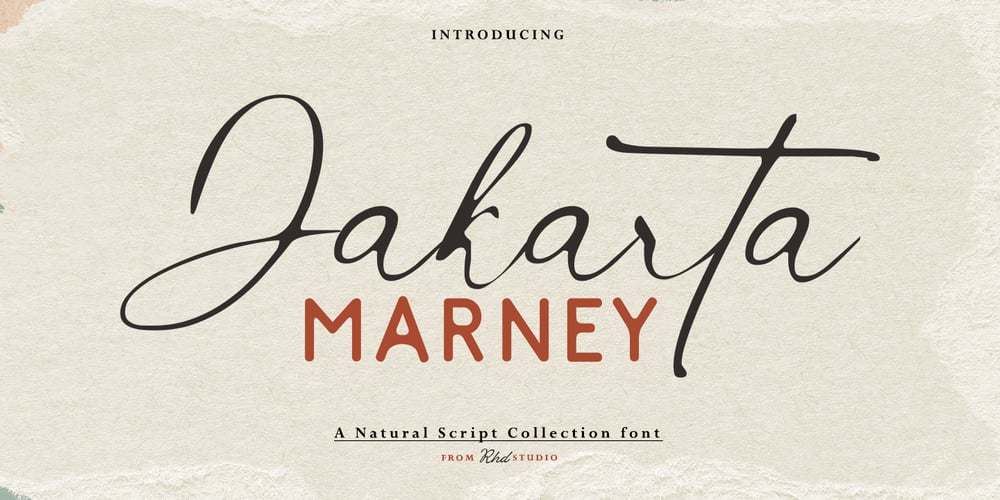
Jakarta Marney Sans
Jakarta Marney Sans font
Jakarta Marney Sans Font Family was designed by Rahmad Rizky and published by Rhd Studio. Jakarta Marney Sans contains 2 styles and family package options. ntroducing, Jakarta Marney – The Essential Font DuoJakarta Marney is a perfect and essential combination of two fonts including rounded sans, and original signature. This font duo also supports multilanguage, numbers and symbols. You can use this font for any purpose. The best part is, you don’t have to look for a partner. It is included in this package. Also equipped with a bonus of 12 beautiful premade logos which will make it easier for you to create a logo! Become an expert in just one step!What you will get:Thank You